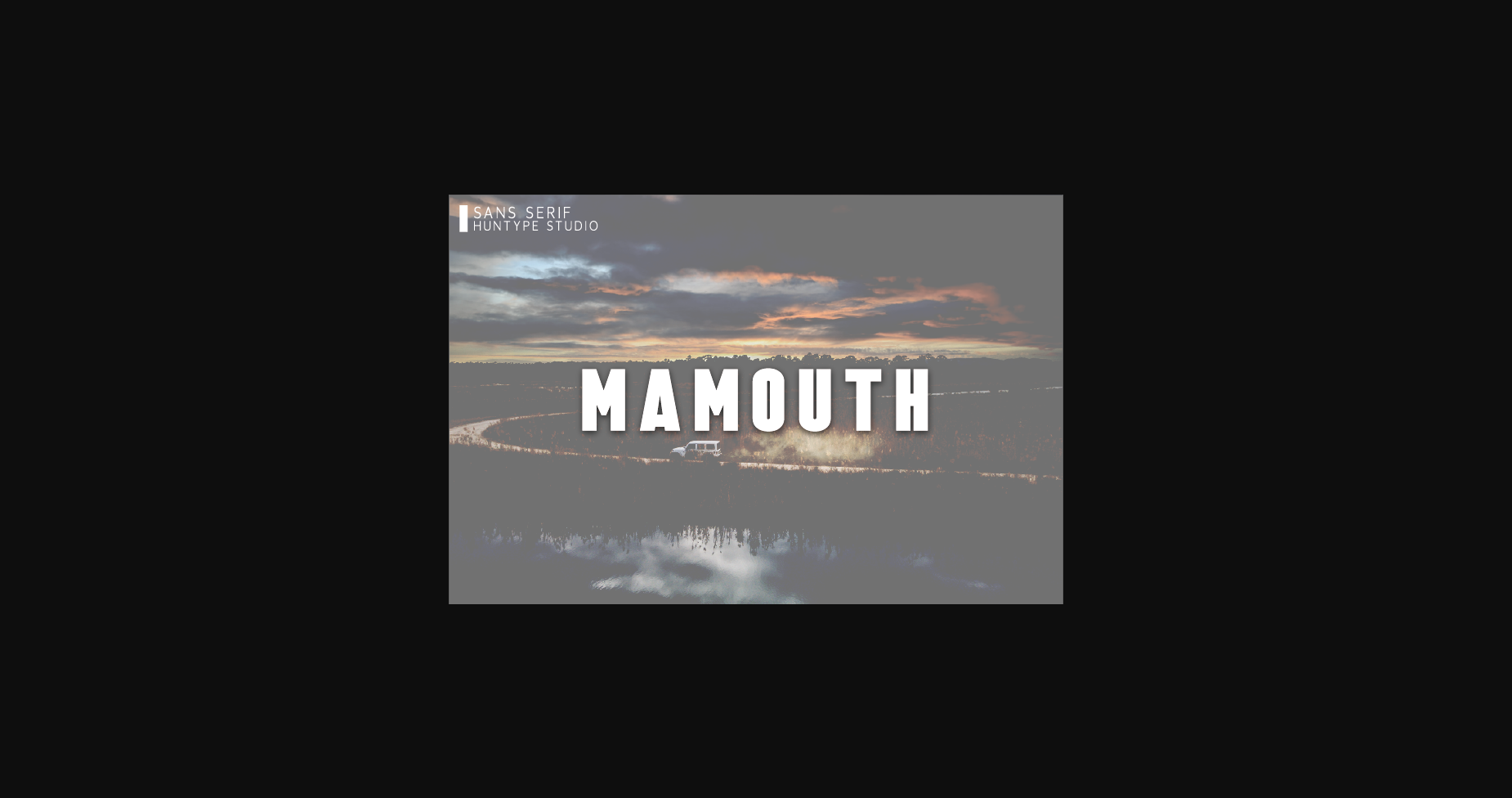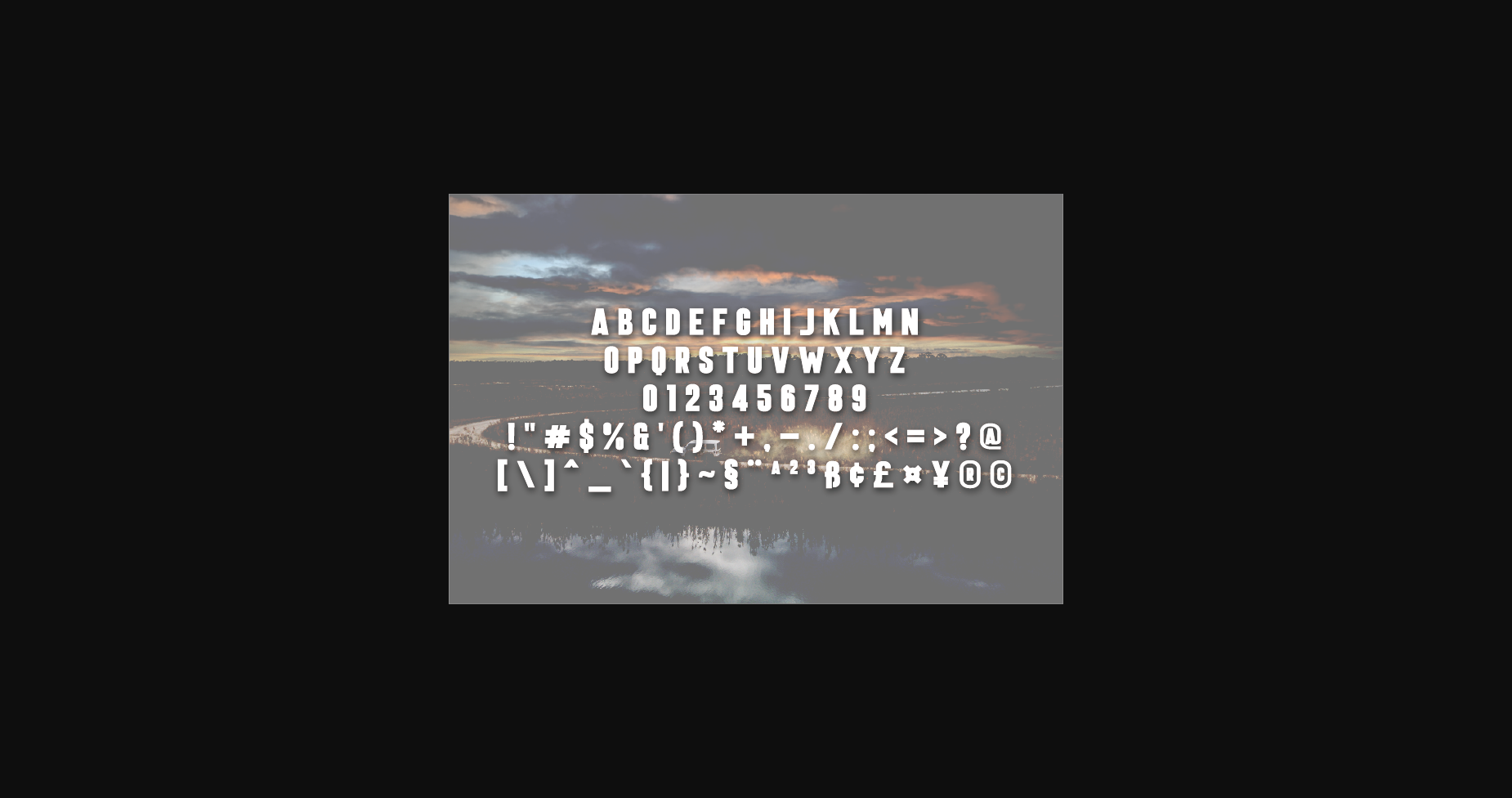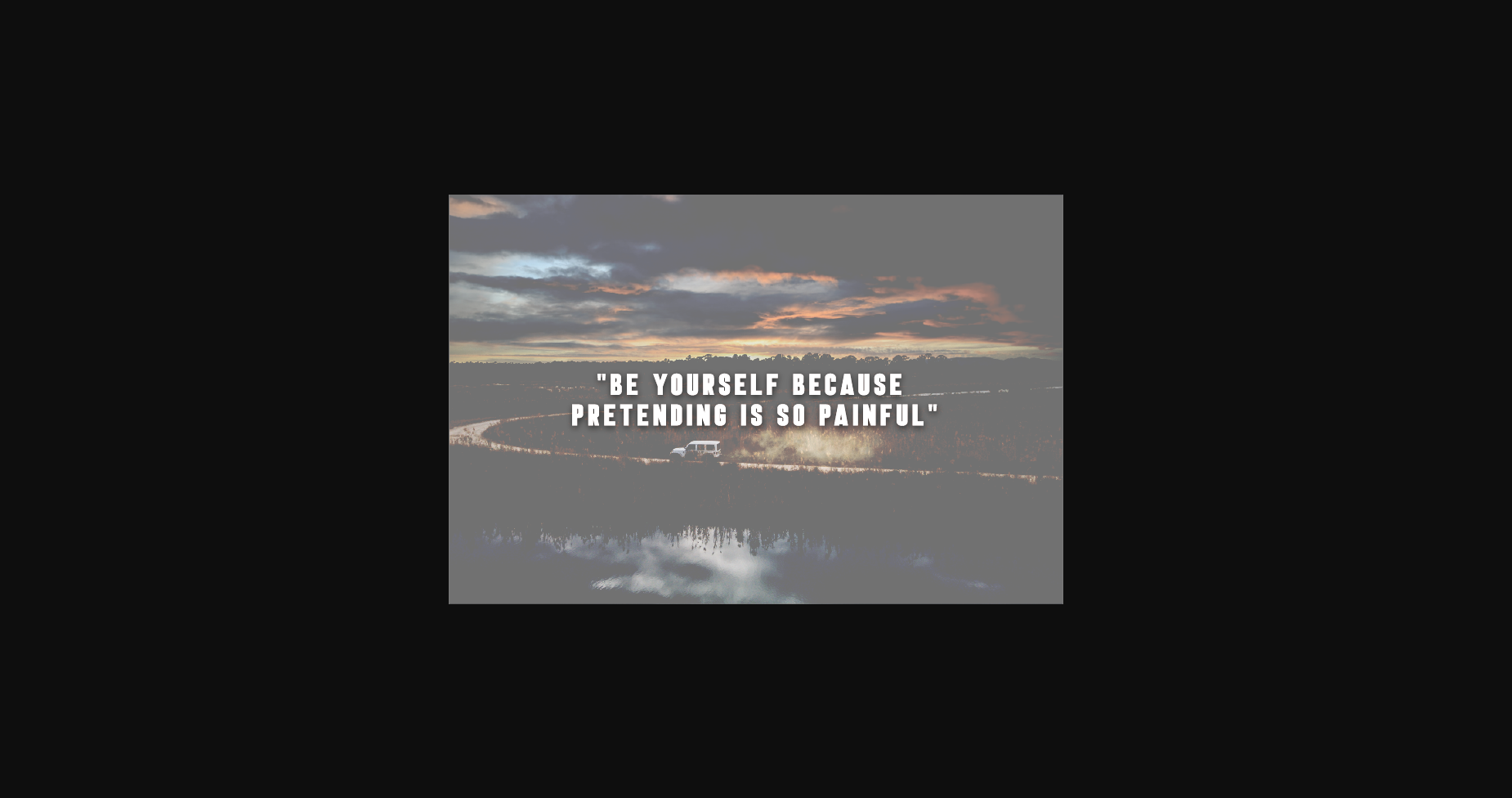
HomeSans Serif FontsMamouth Font Sans Serif Fonts Mamouth Font FacebookXPinterestWhatsApp 1 of 5 ... Mamouth Font Poster 2... Mamouth Font Poster 3... Mamouth Font Poster 4... Mamouth Font Poster 5... About Mamouth Font Mamouth is a minimal and neat sans serif font. It can easily be matched to an incredibly large set of projects, so add it to your creative ideas and notice how it makes them stand out! DOWNLOAD NOW People also explored Gladiola Font Angels Font Judezt Font Rosta Vinta Font House Wifery Font Mitchell Font Capricious Portal Hopkins Angela Font 397 0 TagsMamouthMamouth Font Previous articleStrouse FontNext articleLeavant Font LEAVE A REPLY Cancel reply Comment: Please enter your comment! Name:* Please enter your name here Email:* You have entered an incorrect email address! Please enter your email address here Website: Save my name, email, and website in this browser for the next time I comment. Personal Use Free Quentin Personal Use Free Read more about this font Dimensional Look71 Personal Use Free Read more about this font Shkoder 1989 Personal Use Free Read more about this font Adriator Personal Use Free Read more about this font BLOG How to Install and Use Fonts on Windows, macOS, and Web Projects How to Install and Use Fonts on Windows, macOS, and Web Projects Fonts are a crucial part of design and branding. Whether you’re designing a... Exploring Font Trends Free vs Paid Fonts: Why Investing in Premium Fonts Is Worth It Using Fonts in Digital Marketing: Tips to Strengthen Your Brand Identity